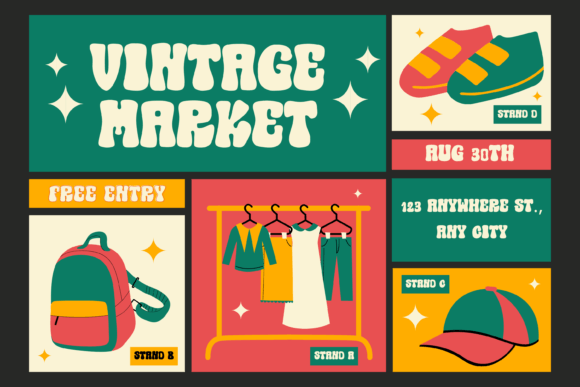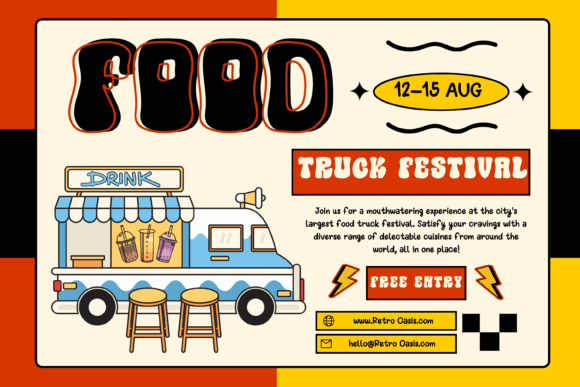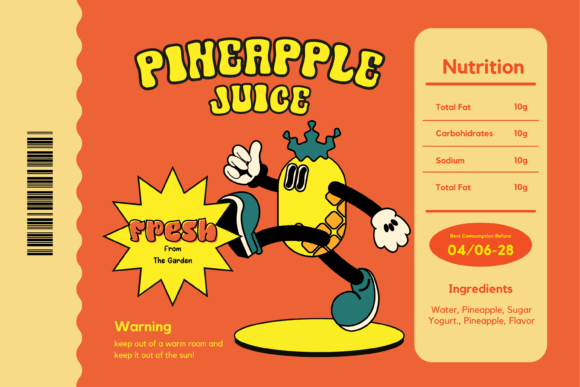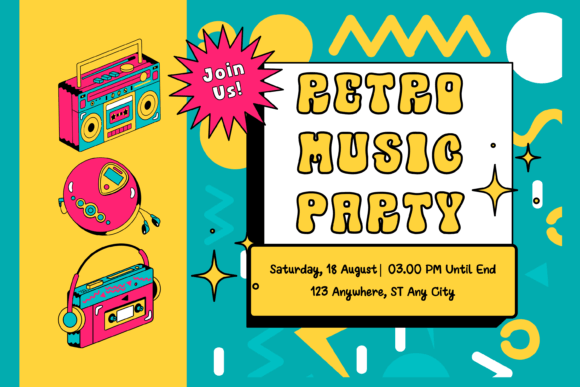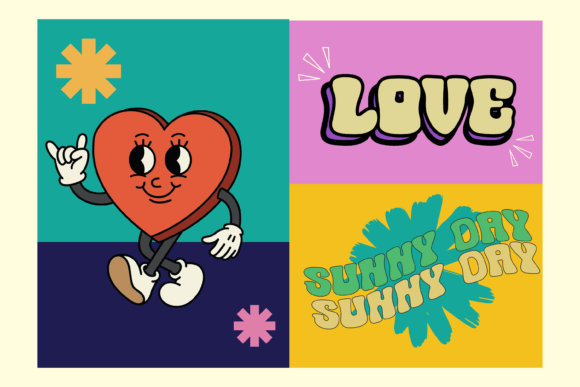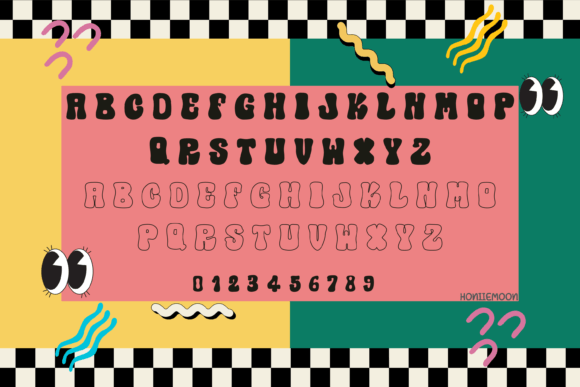
Introduction to Retro Oasis Font
Have you ever found yourself lost in a sea of design ideas, struggling to bring a concept to life? That’s exactly what happened to me last week, when I stumbled upon a vintage photograph of a bygone era. The faded colors, the distressed textures, and the quirky typography all combined to transport me to a different time and place. It was then that I knew I needed a font that could capture the essence of that era – a font that was both playful and nostalgic. Enter the Retro Oasis Font, a charming and eye-catching display font that’s sure to add a touch of whimsy to any design project.
The Power of Retro Oasis Font
As a valuable design resource, the Retro Oasis Font offers a unique blend of high-quality graphics and creative versatility. Whether you’re working on a digital project or a physical one, this font is sure to add a pop of color and personality to your design. With its transparent background and bold display, it’s the perfect addition to any creative project. And the best part? It’s available for free download, making it an accessible and affordable option for designers of all levels.
Unlocking Your Creative Potential
So why is the Retro Oasis Font so valuable for designers? For starters, it offers a level of creative freedom that’s hard to find in other fonts. With its high-quality graphics and transparent background, it’s the perfect choice for designers who want to add a touch of personality to their work. Whether you’re working on a logo, a brochure, or a social media campaign, the Retro Oasis Font is sure to help you bring your ideas to life. And with its free download option, there’s no excuse not to give it a try.
Key Features of Retro Oasis Font
- High-Quality Design Resource: The Retro Oasis Font is a premium design resource that offers a unique and creative aesthetic for your projects.
- Transparent Background: This font features a transparent background, allowing you to easily combine it with other design elements and create a seamless look.
- High Resolution: The font is available in high resolution, ensuring that it looks crisp and clear on a variety of devices and screen sizes.
- Perfect for Creative Projects: The Retro Oasis Font is ideal for creative projects that require a unique and eye-catching aesthetic, such as graphic design, web design, and digital art.
Honest Review: Retro Oasis Font
I recently stumbled upon the Retro Oasis Font and I must say, it’s been a game-changer for my creative projects. The font is available for free download, which is a major plus for designers on a budget.
- ✨ High-quality design: The font is well-designed and looks amazing on a transparent background, making it perfect for creative projects.
- ✨ Versatile: The Retro Oasis Font can be used for a wide range of projects, from logos to social media graphics.
- ⚠️ Limited character set: The font only includes a limited character set, which may not be suitable for longer texts or documents.
- ⚠️ Not suitable for all designs: While the font is versatile, it may not be the best choice for all design projects, especially those that require a more modern or minimalist look.
Overall, I’m really impressed with the Retro Oasis Font. It’s a great resource for designers who need a high-quality font for their creative projects. While it has some limitations, it’s definitely worth checking out.
Retro Oasis Font
The Retro Oasis Font is a high-quality design resource perfect for creative projects that require a vintage touch. This font is available for free download, making it an excellent choice for designers and artists on a budget.